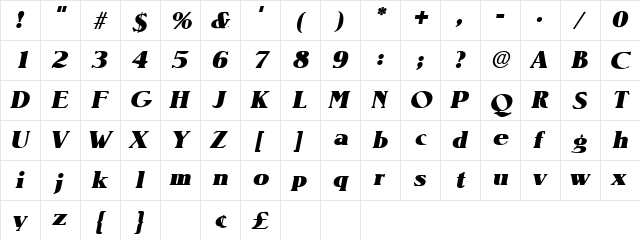
Pinetar Oblique
Design Context for Pinetar Typeface
Pinetar offers clean, dependable letterforms without strong stylistic allegiance, making it a practical choice for designers who need flexibility. Its italic angle brings a sense of urgency and motion to the letterforms.
Pro Tip: Use Pinetar for emphasis, pull quotes, and subheadings where its slanted energy can add rhythm to the layout.